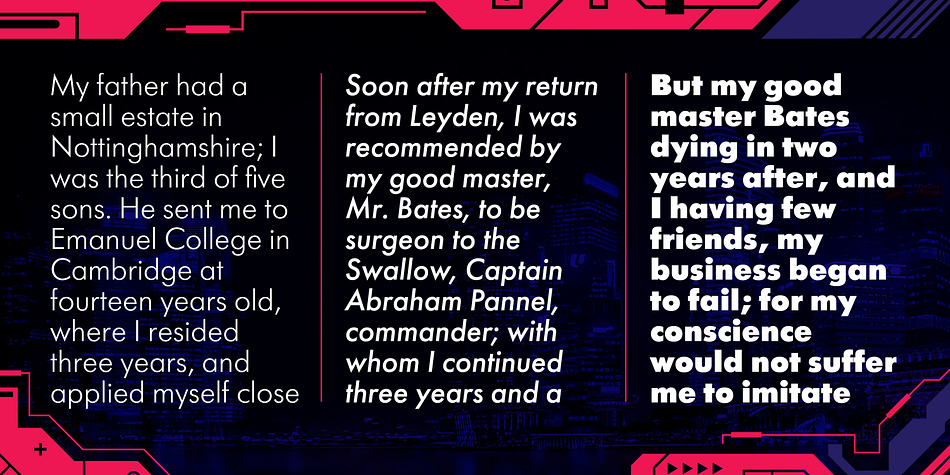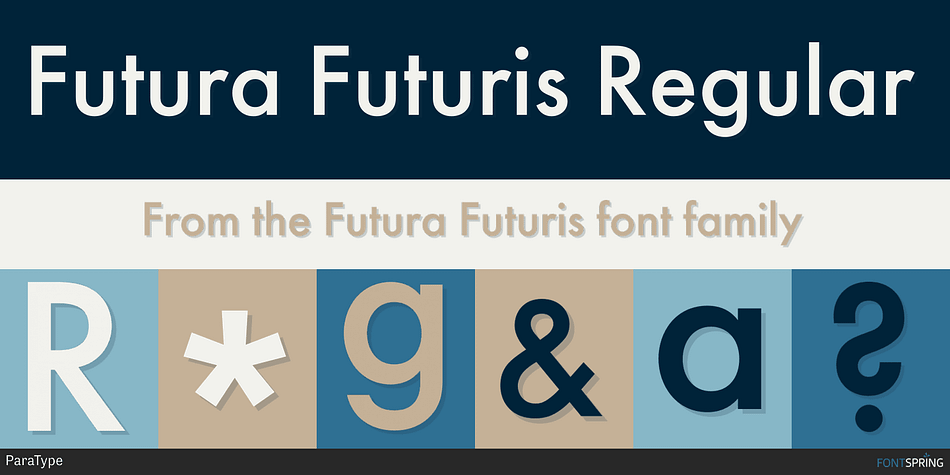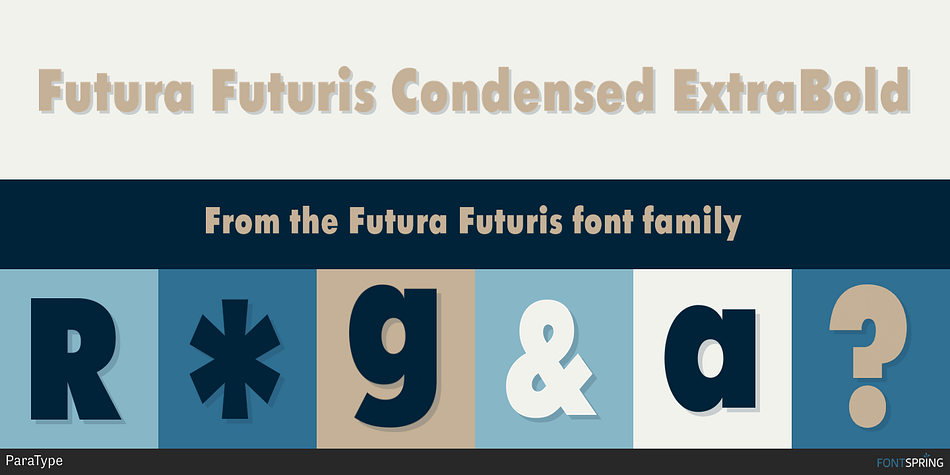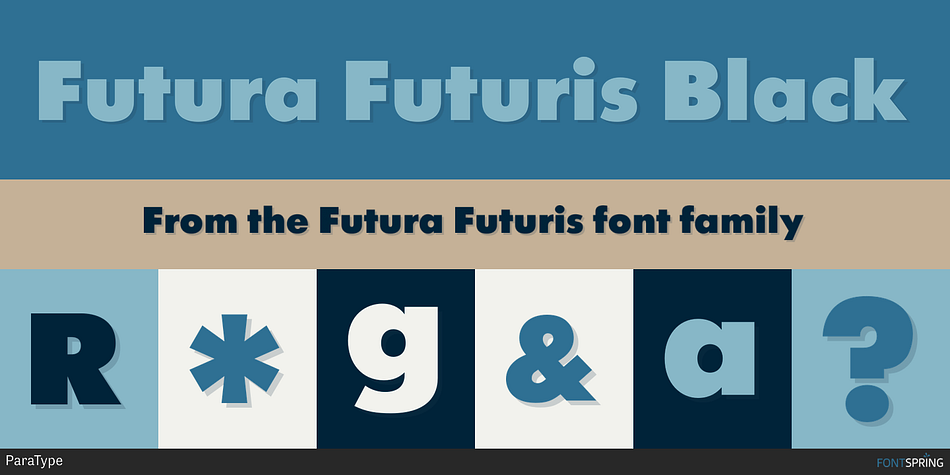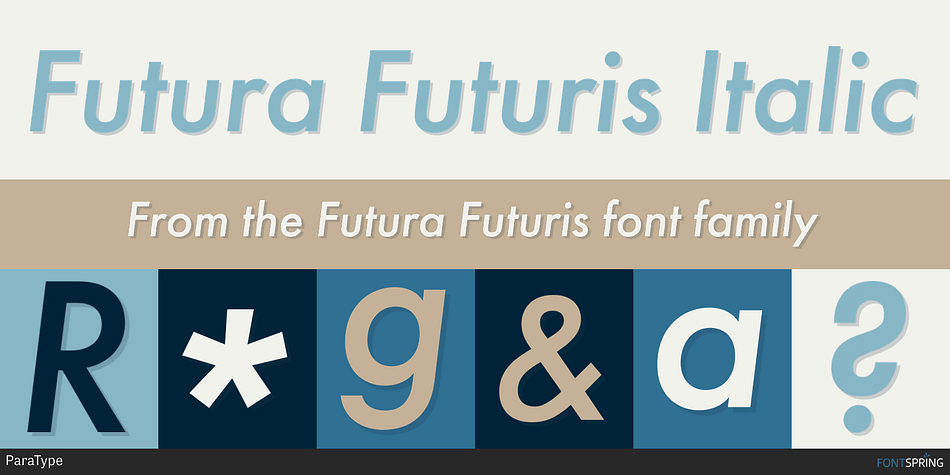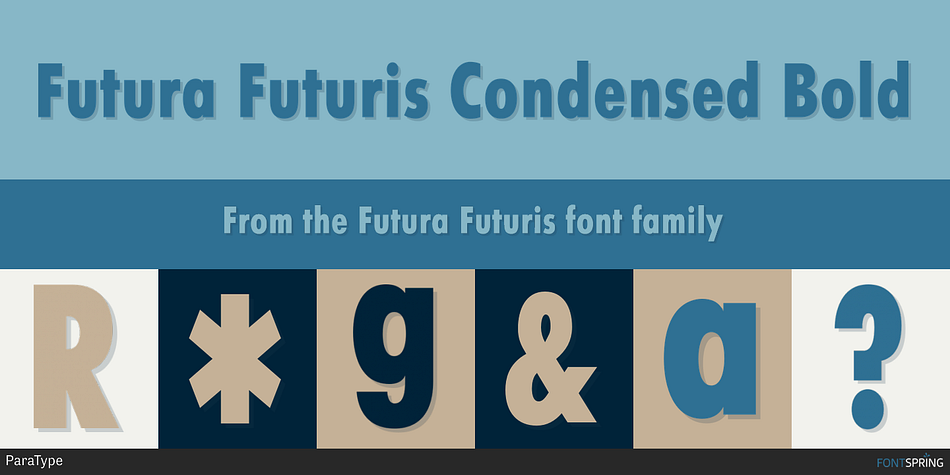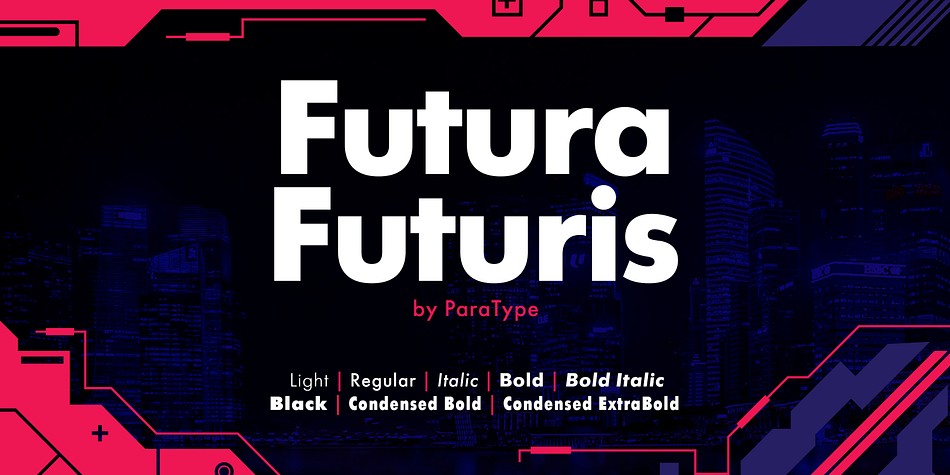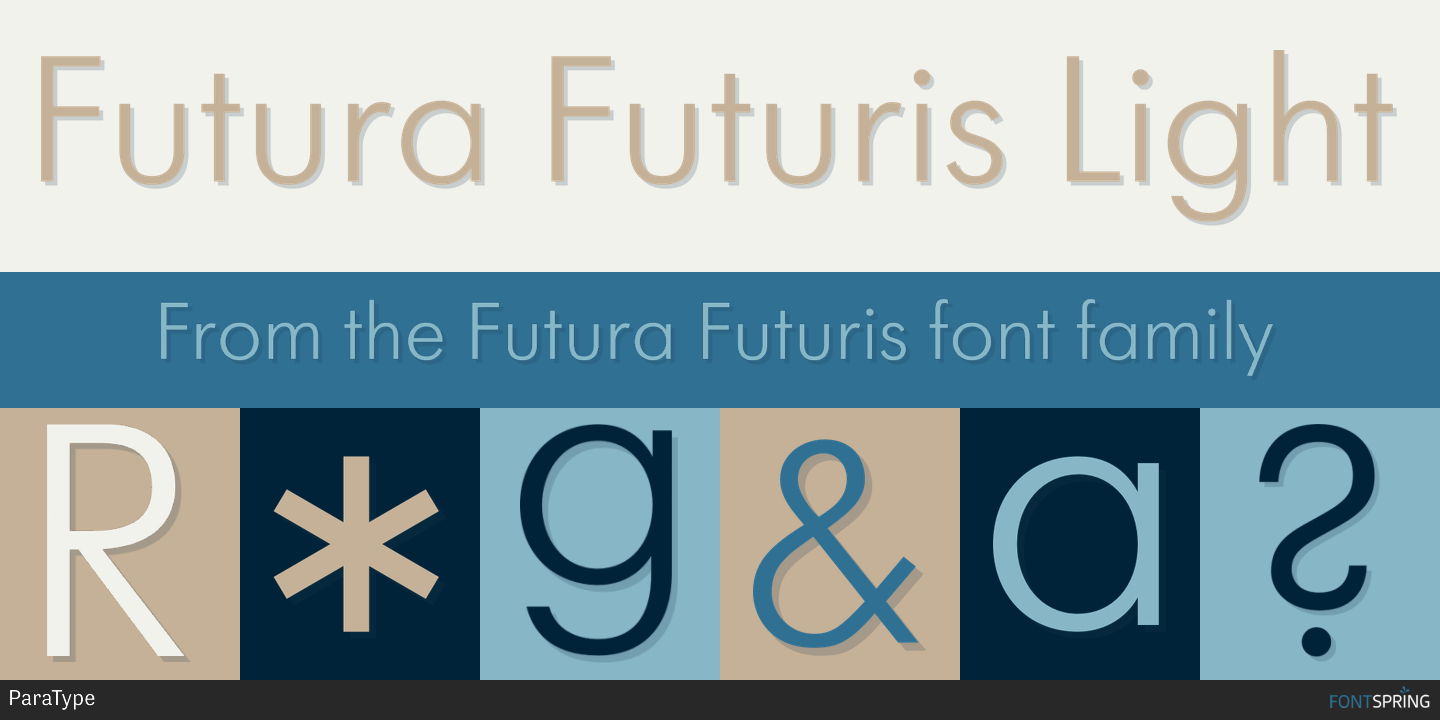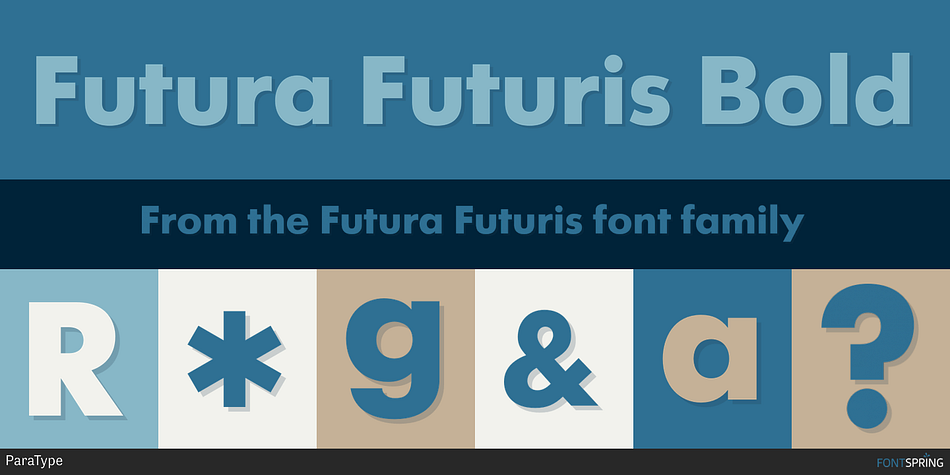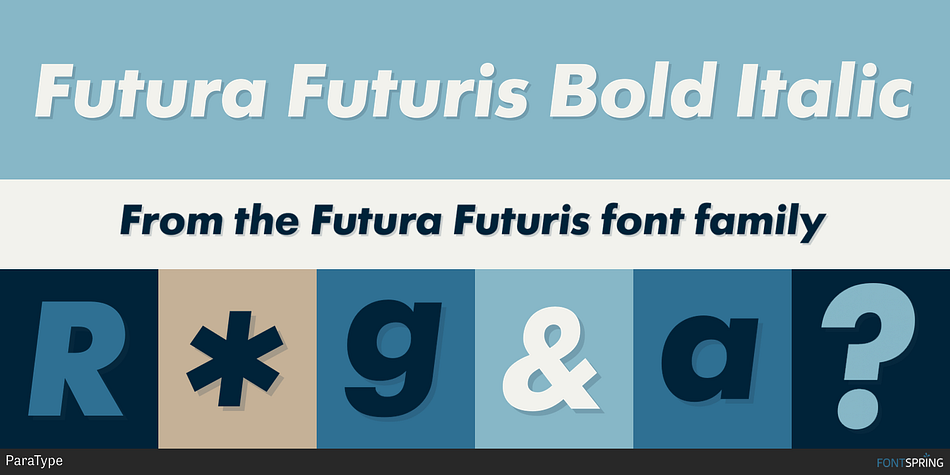
Designed by Alexander Tarbeev and Vladimir Yefimov, Futura Futuris is a sans serif font family. This typeface has eight styles and was published by ParaType.
The typeface was designed at ParaType (ParaGraph) in 1991 by Vladimir Yefimov. Based on Futura of the Bauer company, 1927 by Paul Renner. Condensed styles were added by in 1993 by Vladimir Yefimov and Alexander Tarbeev.